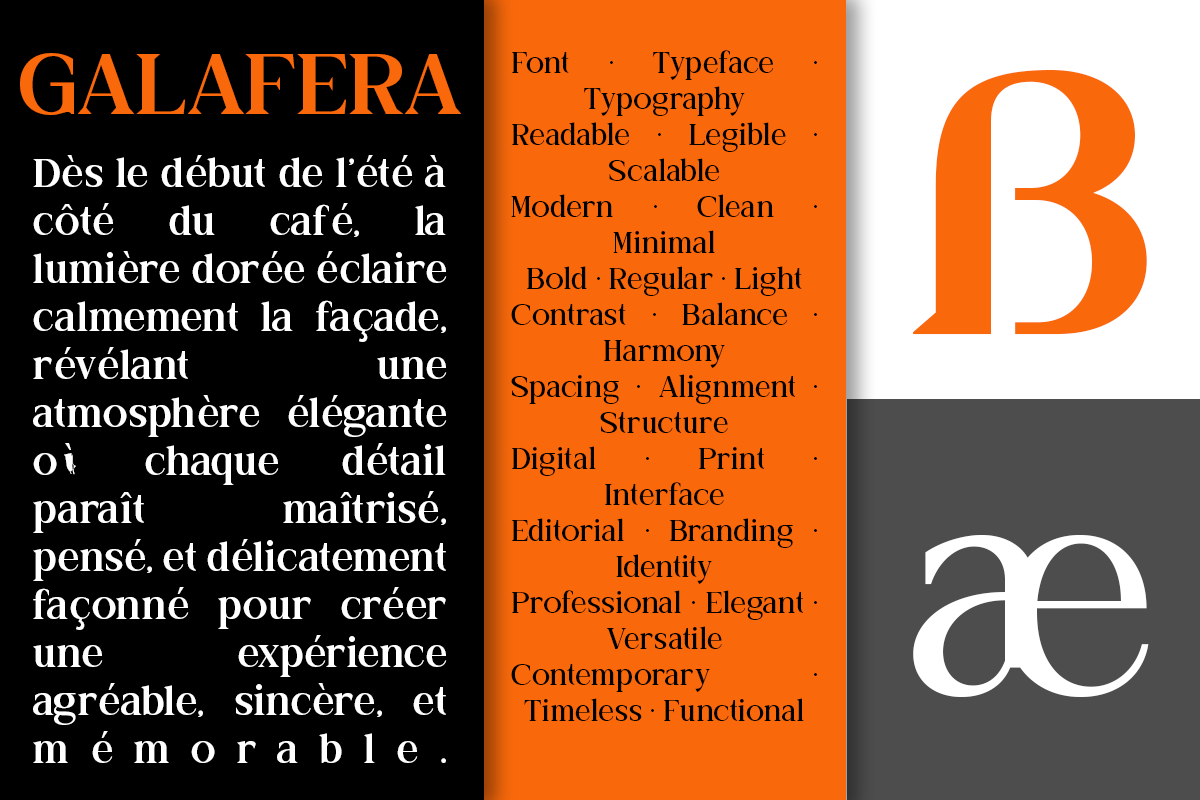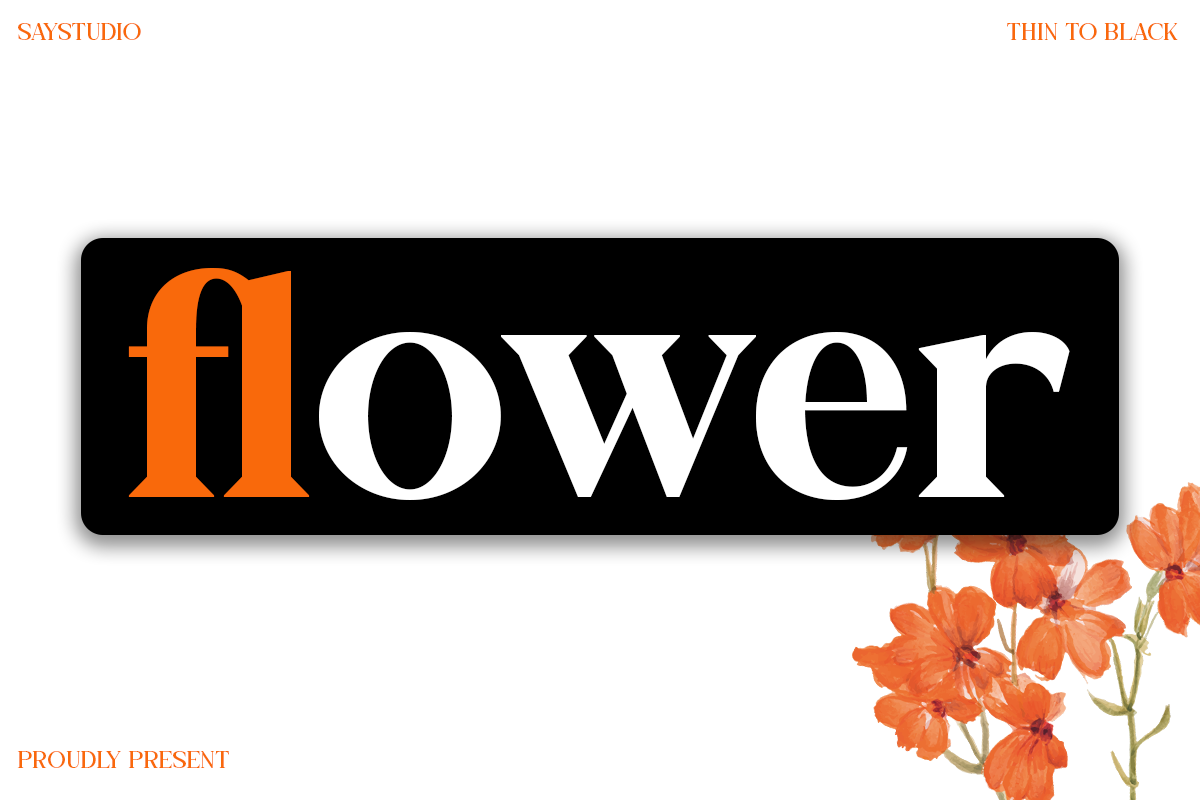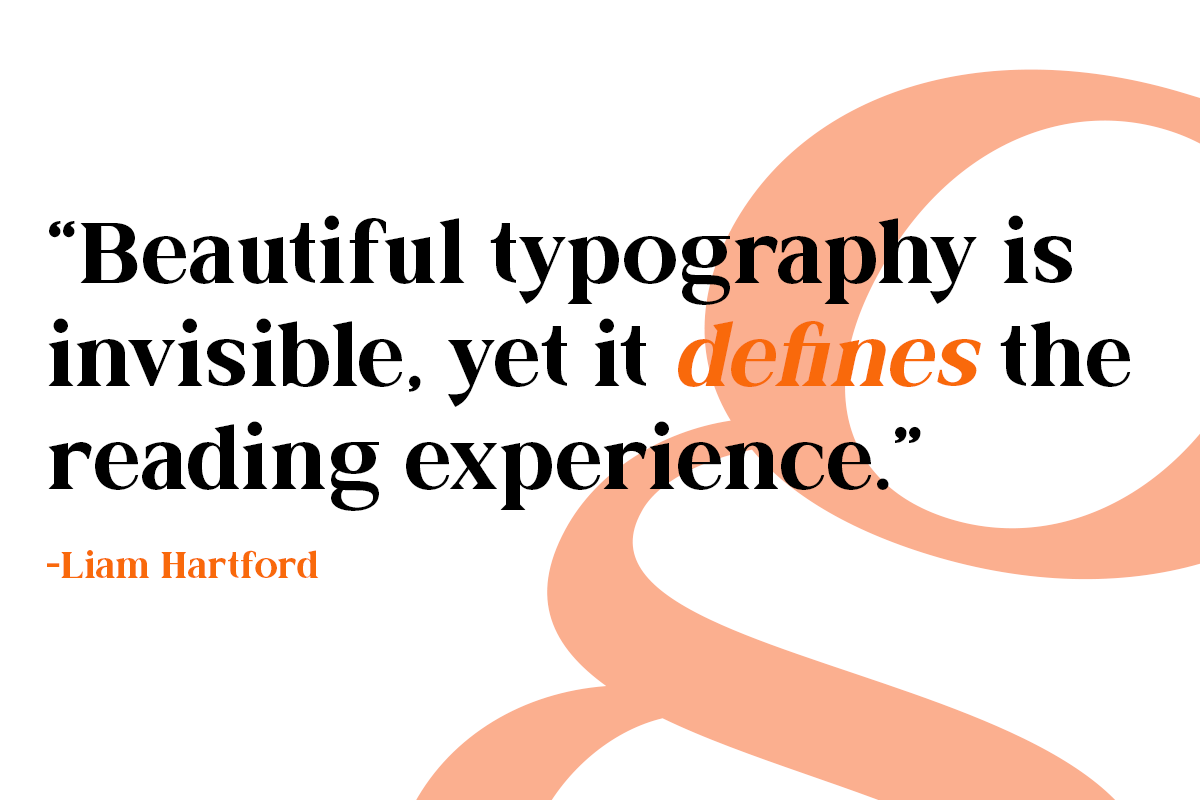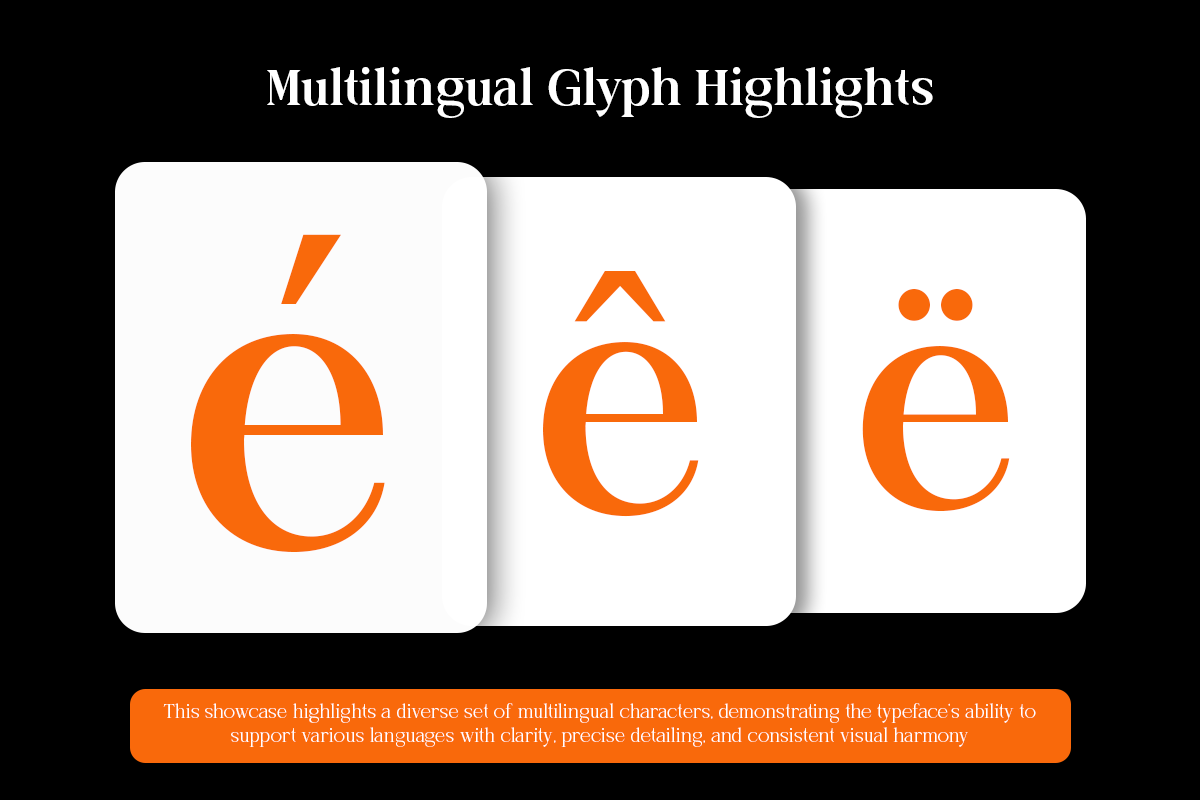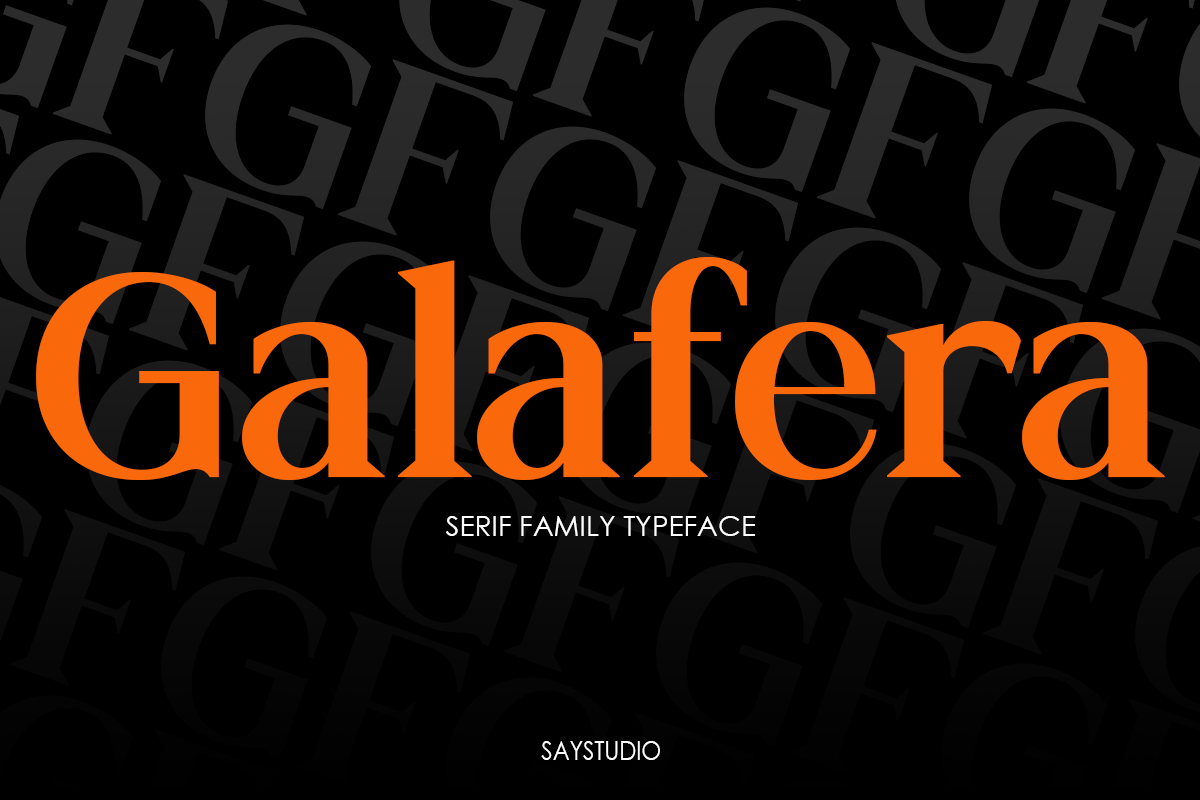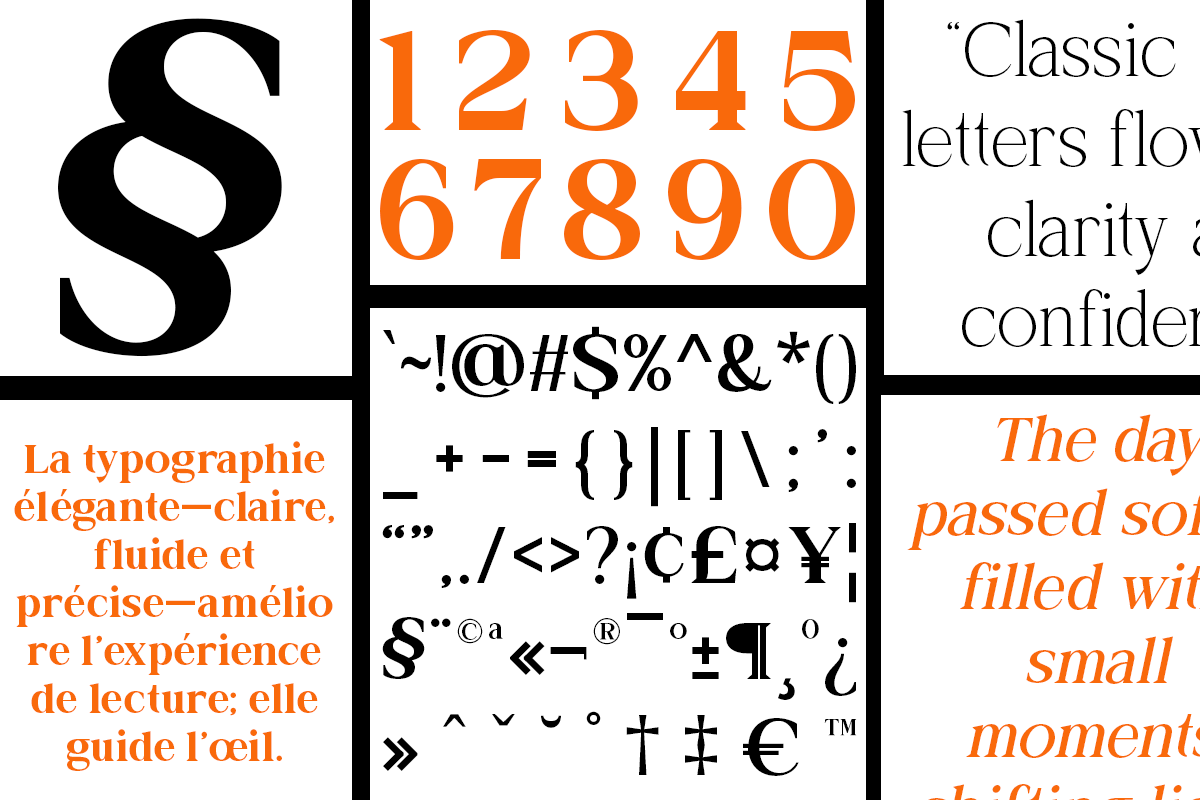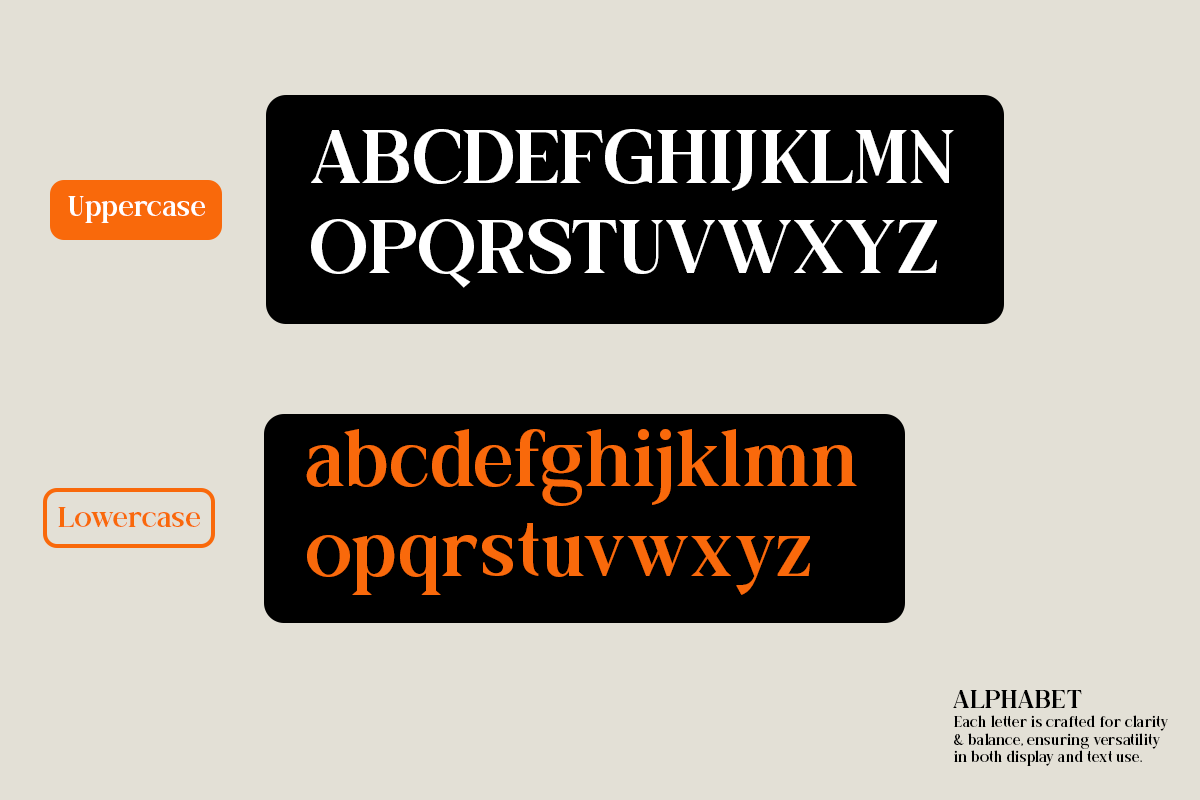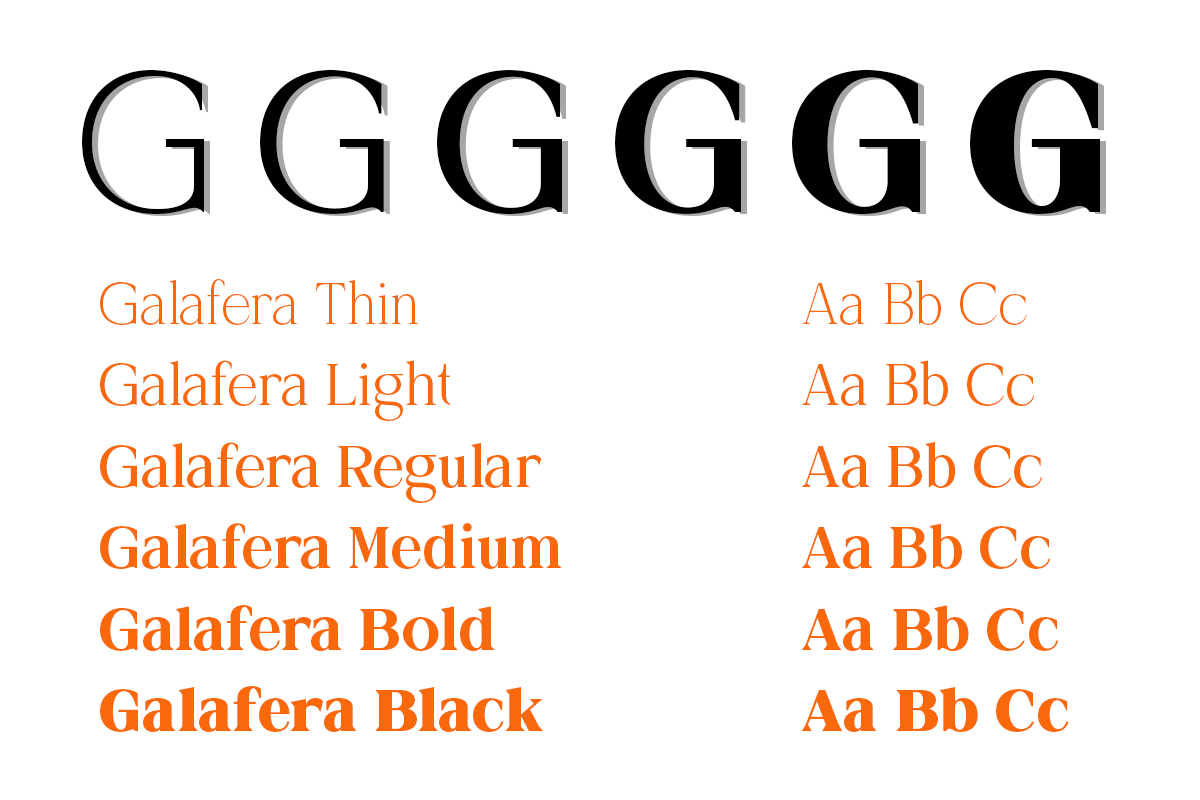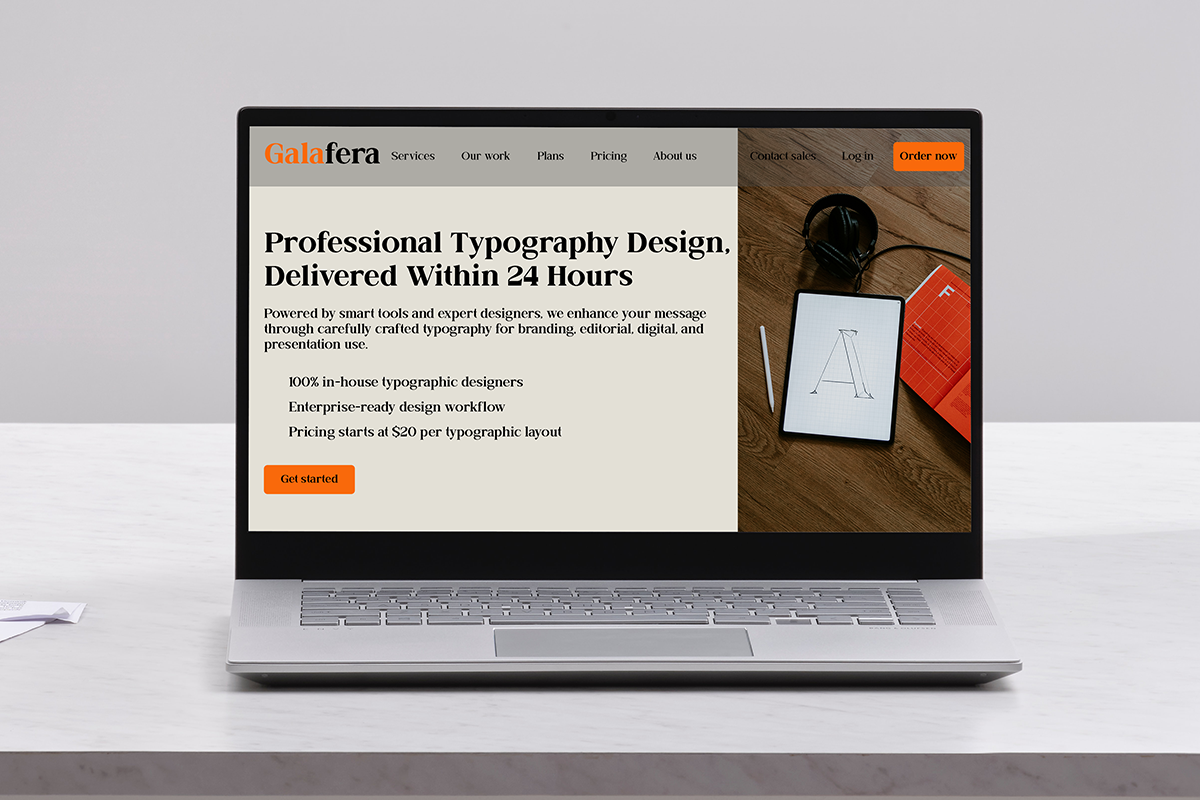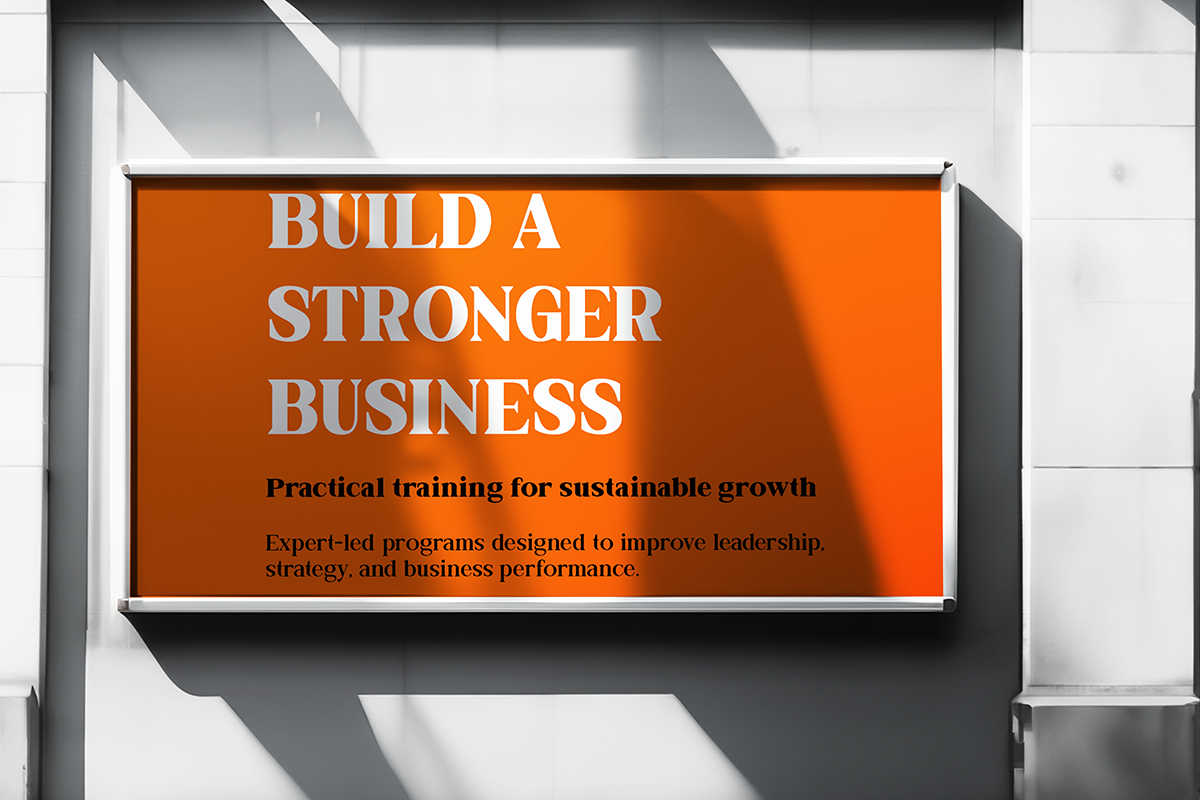
Galafera - Family Serif Typeface
Galafera is an elegant serif family typeface designed to deliver a refined, modern, and timeless visual identity. Featuring balanced proportions, smooth serif details, and strong contrast, Galafera creates a confident yet sophisticated appearance across all design applications. This font is perfectly suited for branding, logos, editorial layouts, fashion design, magazines, headlines, and premium visual projects that require a classy and professional look. Its versatility allows it to perform beautifully at both large display sizes and smaller text settings, making it ideal for print and digital use. Galafera is crafted for designers who seek a modern serif font with a classic touch, offering a harmonious blend of contemporary aesthetics and traditional elegance.